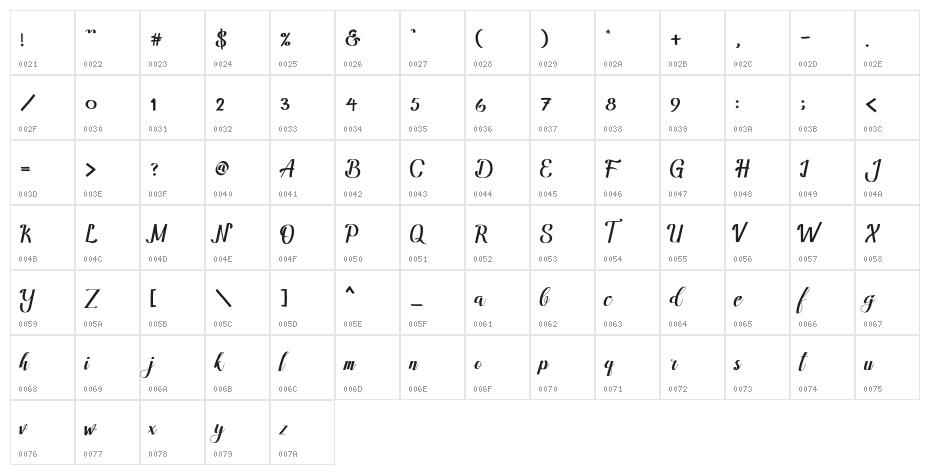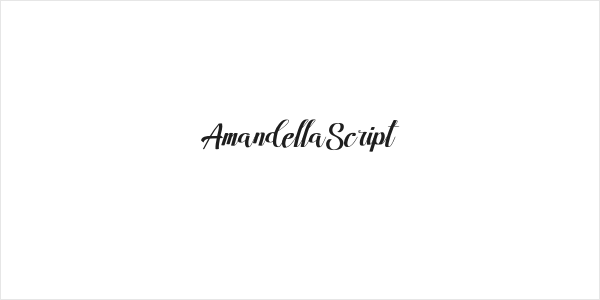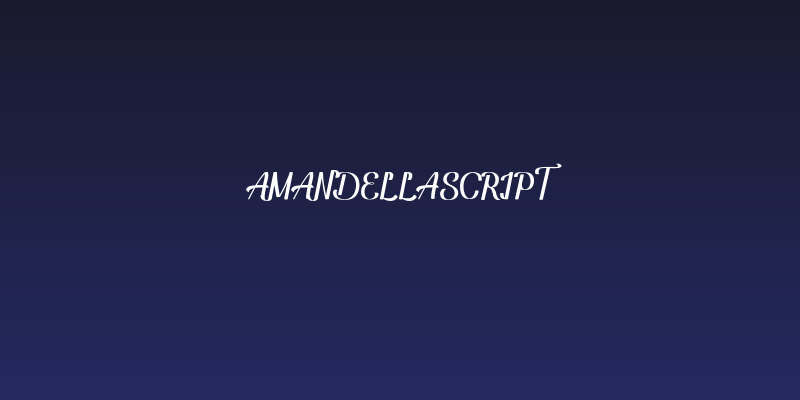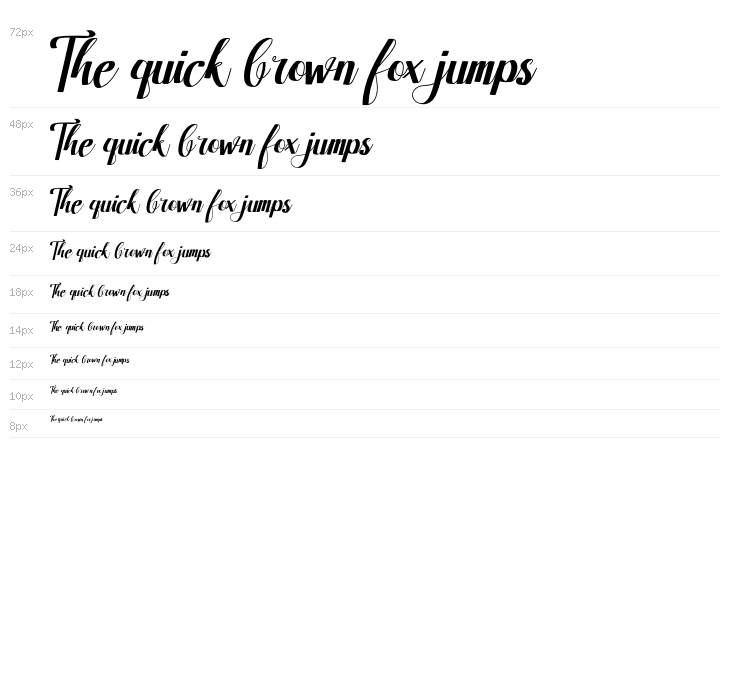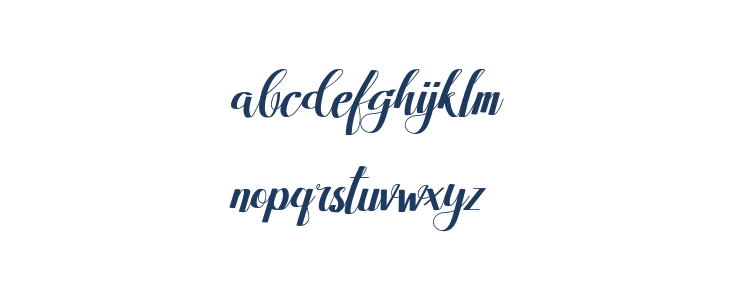
AmandellaScript Font
AmandellaScript Description
This elegant script font features a flowing, cursive style with a modern twist. The uppercase letters are bold and slightly slanted, giving a sense of movement and grace. The lowercase letters are intricately designed with delicate loops and swashes, adding a touch of sophistication. The numerals are clear and easy to read, maintaining the overall aesthetic of the font. Special characters are thoughtfully crafted, ensuring consistency throughout. This font is perfect for adding a personal touch to any project, combining traditional script elements with a contemporary flair.
| Use Case | Logos, Invitations, Branding |
| Proposed Projects | Ideal for wedding invitations, branding, greeting cards, and elegant packaging designs. |